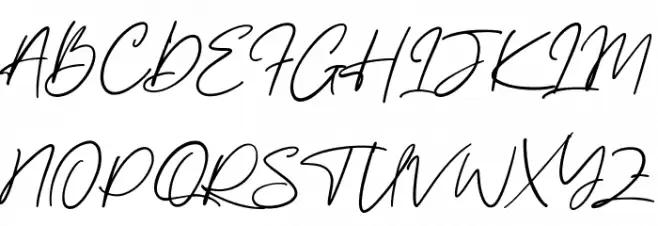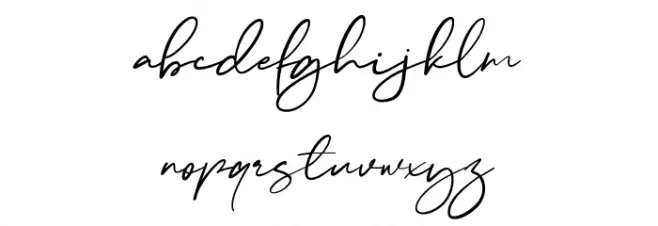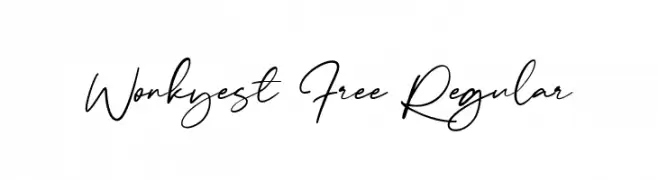
Wonkyest Free Regular
A flowing, cursive script font with a handwritten style, featuring elegant and elongated letterforms.
Elegant cursive script with a handwritten feel.
- Proposed Projects: Invitations, greeting cards, personal branding.
- Category: Script
- Overall Style: Decorative
- Use Case: Logos, Headlines